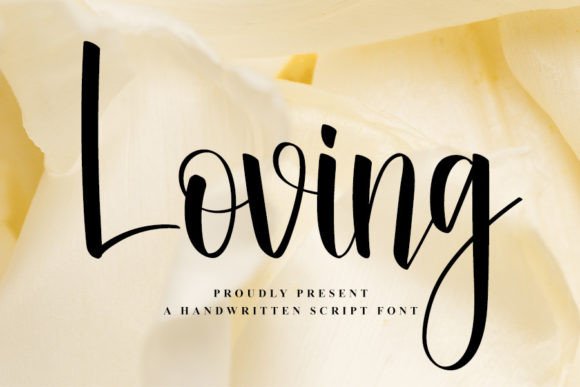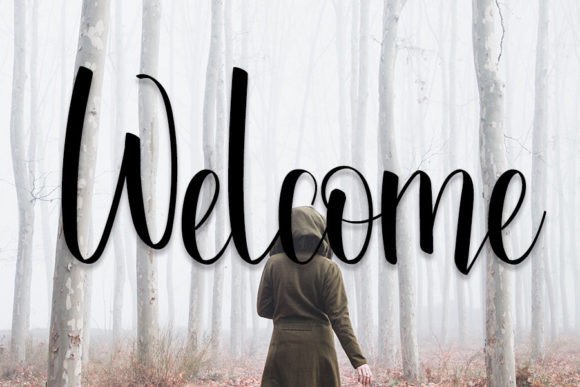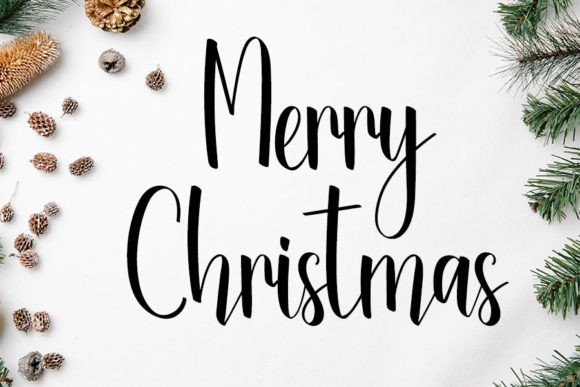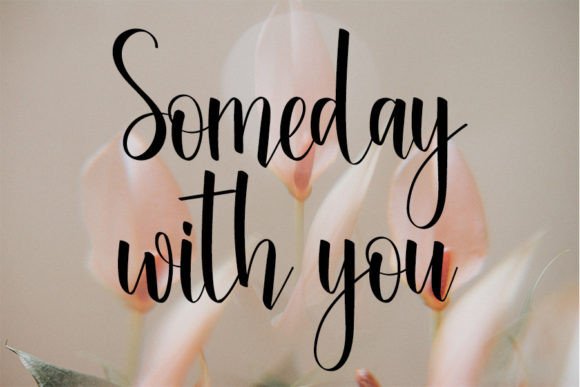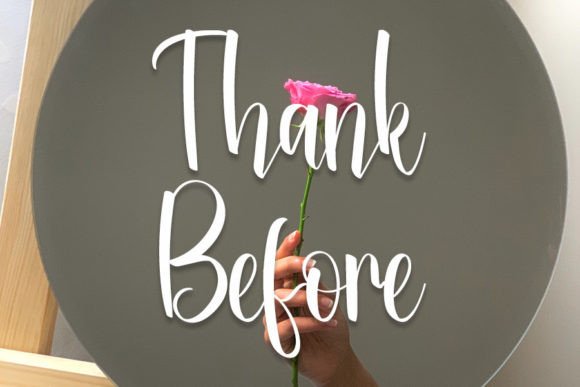
Loving Font
About Loving Font
Loving Font is a stylish and trendy handwritten typeface that merges the timeless beauty of classic calligraphy with a fresh, contemporary flair. Its impeccable form and graceful strokes provide a refined elegance, making it ideal for elevating wedding invitations, branding materials, social media graphics, and more. Whether you want to convey romance, sophistication, or modern chic, Loving adds a classy and heartfelt touch to your designs.
Classic Calligraphy with a Modern Edge
Drawing inspiration from traditional calligraphy, Loving refreshes the style with smooth, flowing lines and balanced letterforms. This combination ensures excellent readability while maintaining a sophisticated artistic appeal. It’s the perfect font for designers who want to mix vintage charm with current trends.
Versatile Applications of Loving Font
This font shines in many design contexts, such as:
• Wedding invitations and save-the-date cards
• Luxury brand logos and packaging
• Magazine and editorial layouts
• Social media and digital marketing visuals
• Elegant event signage and stationery
Loving’s polished style helps create designs that are both beautiful and memorable.
Why Choose Loving Font?
Loving is favored by designers because it offers:
• Fluid, elegant strokes inspired by classic calligraphy
• Clear legibility even at smaller sizes
This makes it both a creative and practical choice.
Bring Sophistication to Your Designs
Typography is a powerful way to express emotion. Loving Font communicates romance, elegance, and timeless beauty effortlessly. Whether you’re designing wedding stationery or branding for an upscale boutique, this font helps your message resonate with style and grace.
In conclusion, Loving Font is a beautifully crafted script font that perfectly blends classic elegance with modern sensibility. It’s an excellent choice for adding sophistication and personality to your wedding, branding, or creative projects. Add Loving to your font collection and create designs that stand out with charm and class.